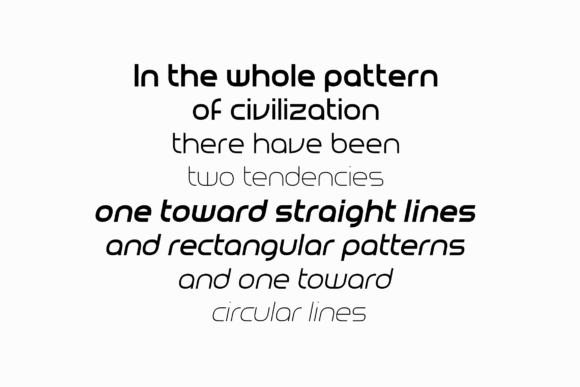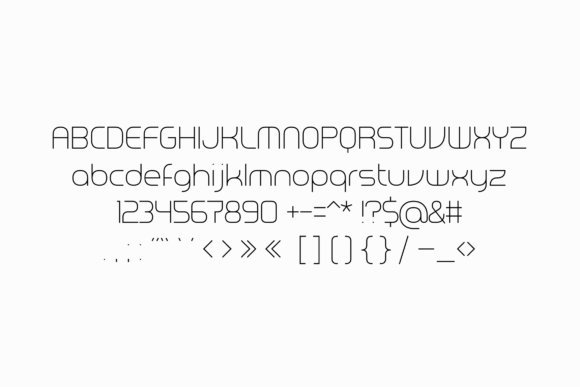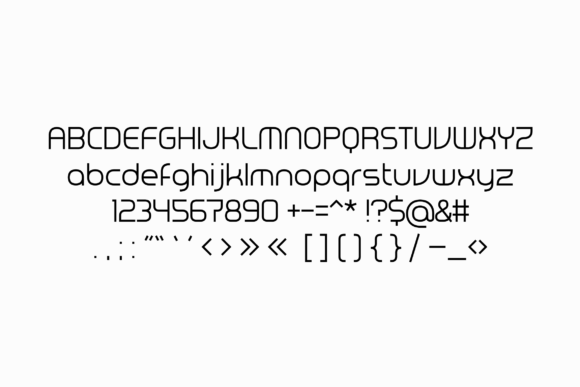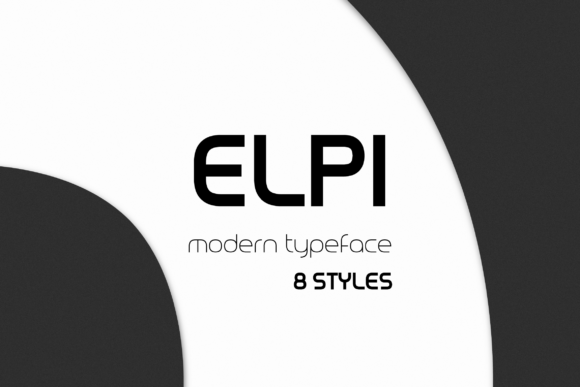
Introducing Elpi Font: Elevate Your Designs with Elegance and Versatility
In the world of typography, a font can make or break a design. For designers and crafters seeking that perfect blend of modernity and elegance, the Elpi Font is a game-changer. This beautifully crafted modern typeface comes in 8 versatile styles, making it an ideal choice for a wide range of projects. From wedding invitations and thank you cards to quotes, greeting cards, logos, business cards, and more, Elpi Font is designed to add a customized touch that sets your designs apart.
The Essence of Elpi Font
Elpi Font is not just another typeface; it’s a design solution that understands the need for versatility and elegance in modern design. Its 8 styles offer a range of options for designers to choose from, ensuring that their projects have a unique and sophisticated look. Whether you’re working on a romantic wedding invitation or a professional business card, Elpi Font adapts seamlessly, providing a touch of class and refinement.
Key Features of Elpi Font
- 8 Versatile Styles: From light and elegant to bold and impactful, Elpi Font’s range of styles ensures you have the perfect variation for any project.
- Modern and Elegant: Designed with contemporary aesthetics in mind, Elpi Font brings a fresh and sophisticated look to your designs.
- Highly Versatile: Suitable for a variety of applications, including wedding invitations, thank you cards, quotes, greeting cards, logos, business cards, and more.
- Customized Touch: With Elpi Font, adding a personal and unique touch to your designs has never been easier.
Applications of Elpi Font
The versatility of Elpi Font makes it a valuable addition to any designer’s toolkit. Here are some of the many ways you can use Elpi Font to elevate your designs:
Wedding Invitations and Stationery
For wedding planners and designers, creating beautiful and unique invitations is a top priority. Elpi Font’s elegant styles make it perfect for wedding invitations, save-the-date cards, and other wedding stationery, adding a touch of romance and sophistication.
Business and Personal Branding
Business cards, logos, and letterheads are crucial elements of professional branding. Elpi Font’s modern and clean lines make it an excellent choice for businesses looking to convey a sense of professionalism and elegance.
Digital and Print Media
From quotes and greeting cards to posters and flyers, Elpi Font’s versatility shines in both digital and print media. Its clear readability and aesthetic appeal make it a go-to font for designers working on various projects.
Why Choose Elpi Font?
With so many fonts available, why choose Elpi Font for your projects? The answer lies in its unique blend of modernity, elegance, and versatility. Here are a few reasons why Elpi Font stands out:
- Unique Designs: Elpi Font offers a fresh perspective on modern typography, making your designs stand out.
- Time-Saving: With 8 styles to choose from, you can easily find the perfect fit for your project without having to search for multiple fonts.
- Easy to Use: Elpi Font is designed to be user-friendly, making it easy to incorporate into your design workflow.
Elpi Font is more than just a typeface; it’s a design companion that can elevate your projects to new heights of elegance and sophistication. Whether you’re a professional designer or a crafting enthusiast, Elpi Font offers the versatility and beauty you need to create stunning designs. With its 8 styles and wide range of applications, Elpi Font is an essential tool for anyone looking to add a customized touch to their work. Discover the possibilities with Elpi Font and take your designs to the next level.